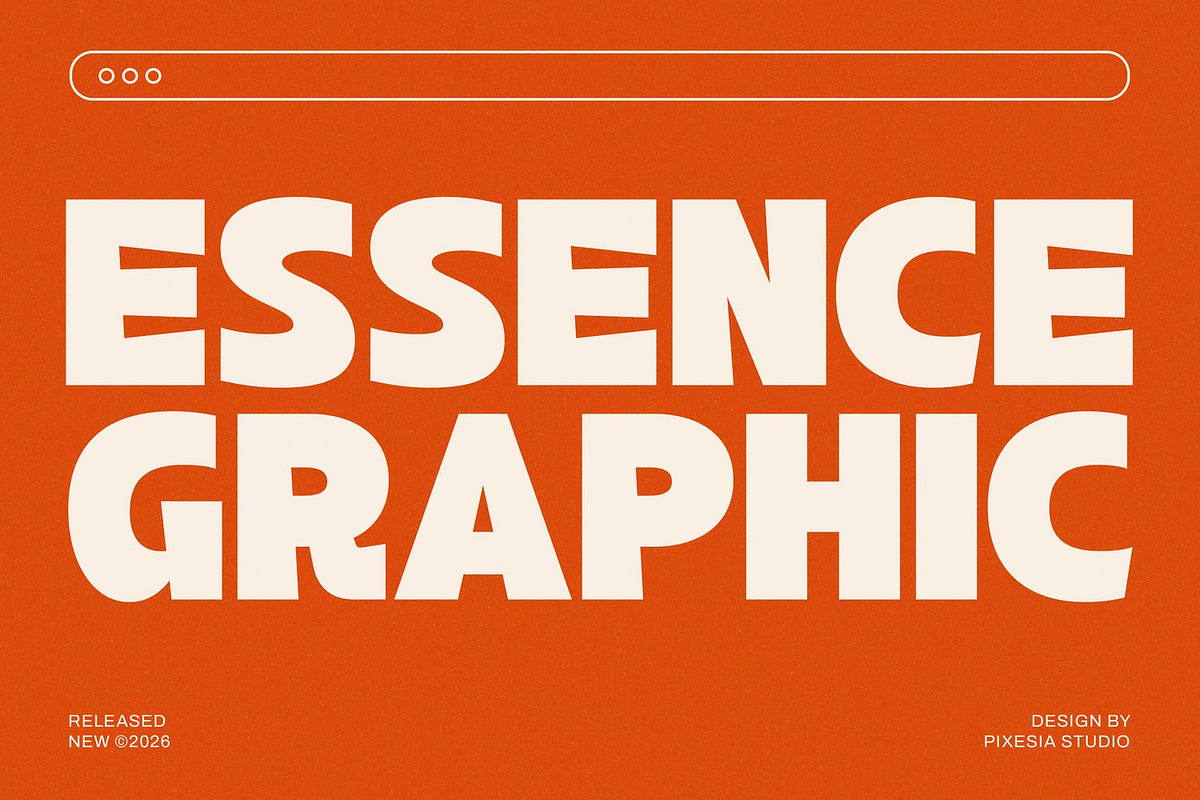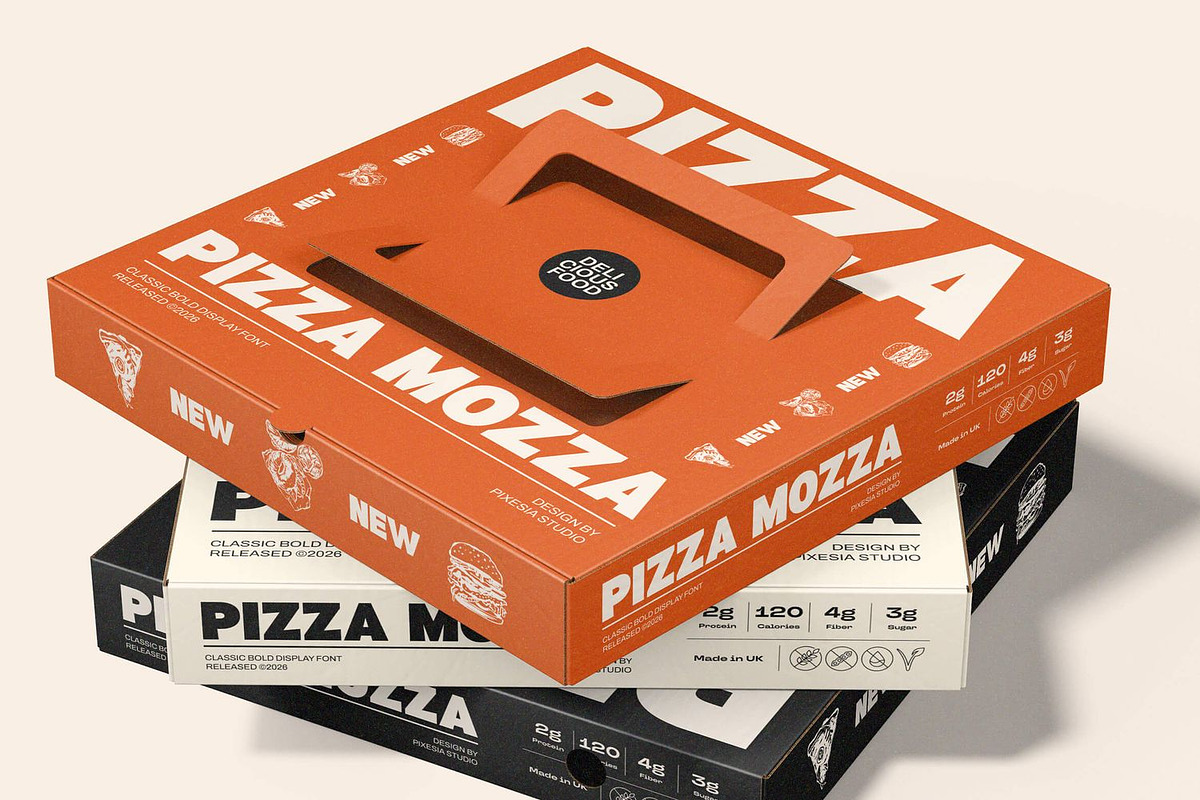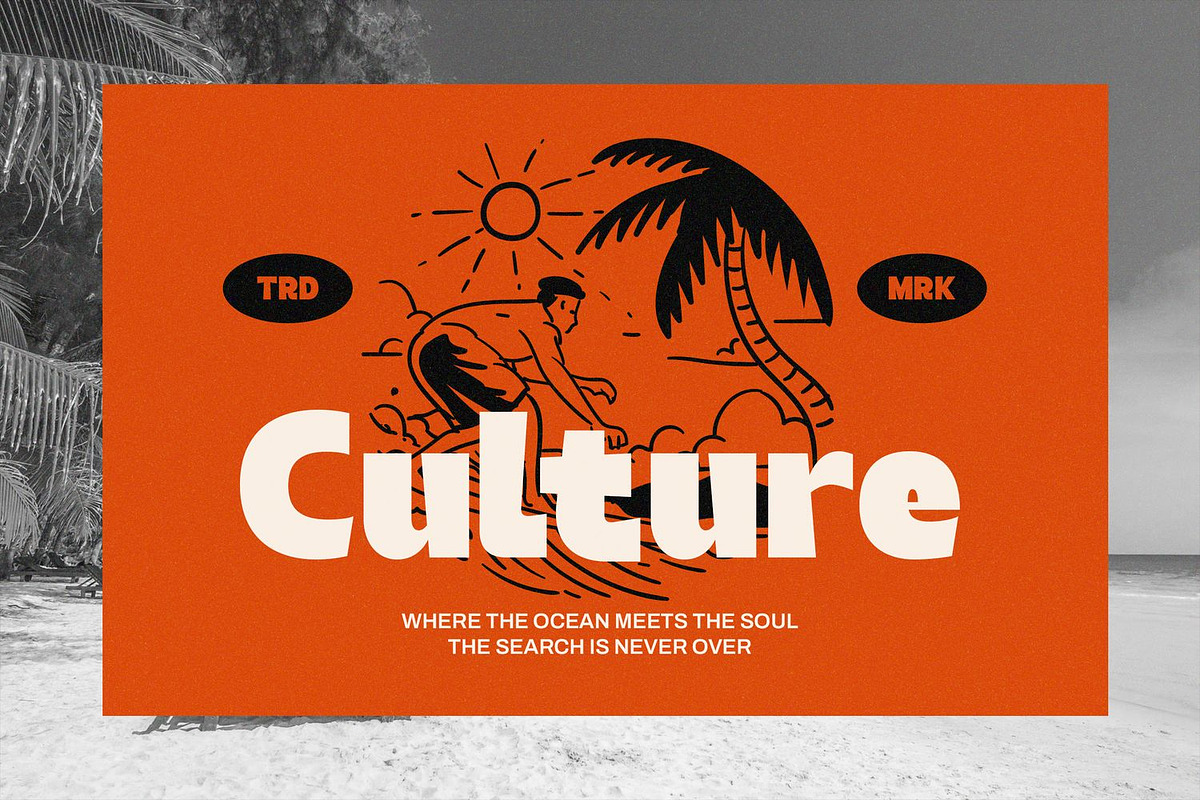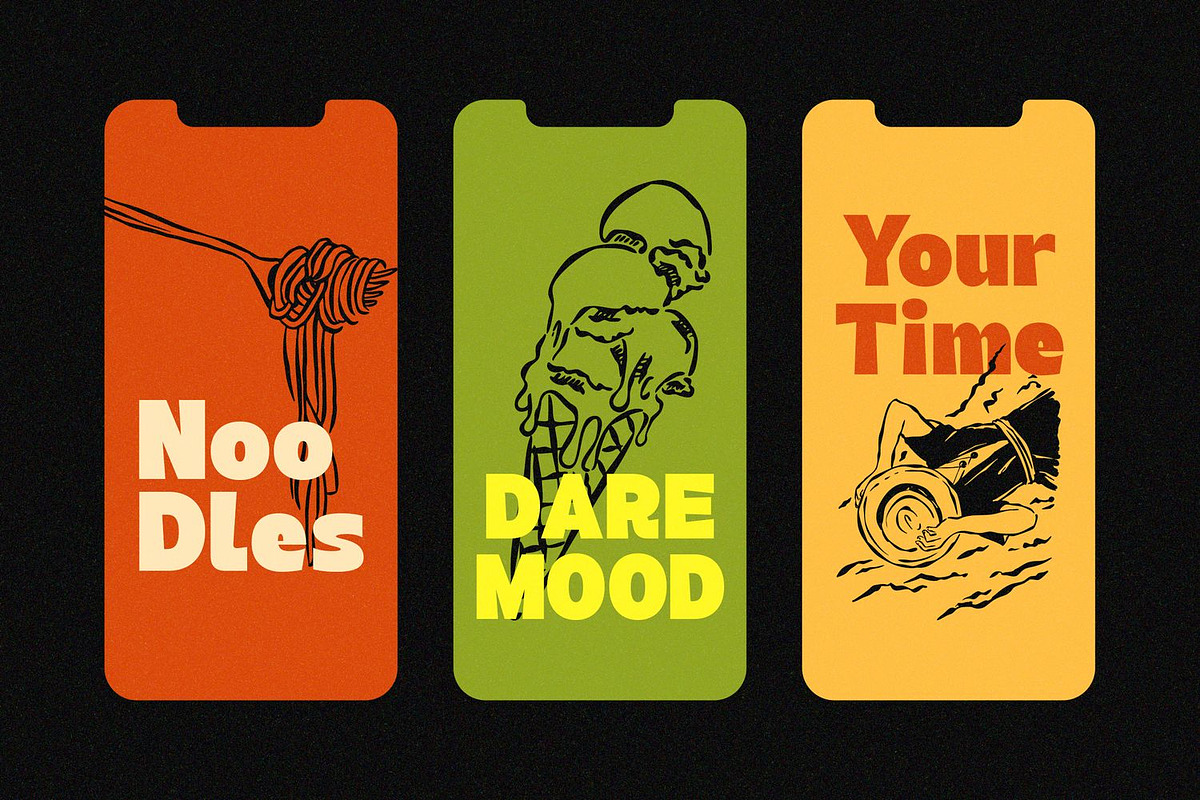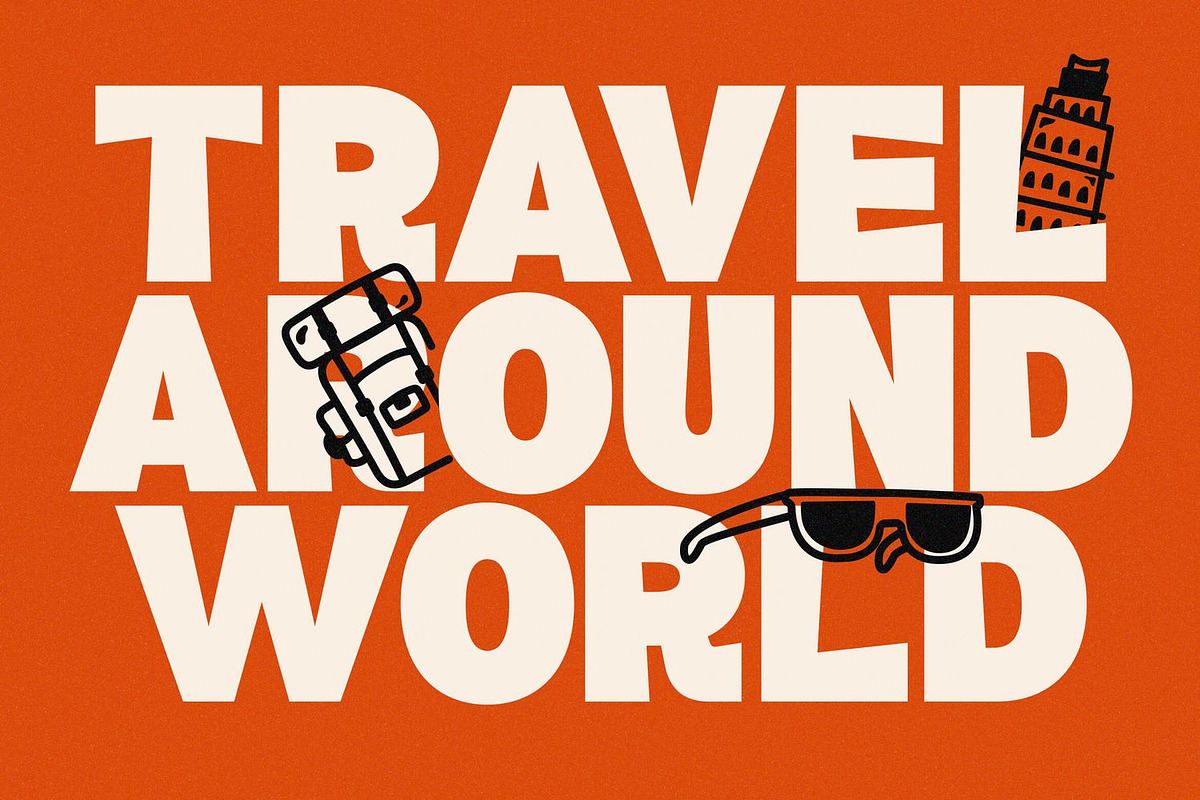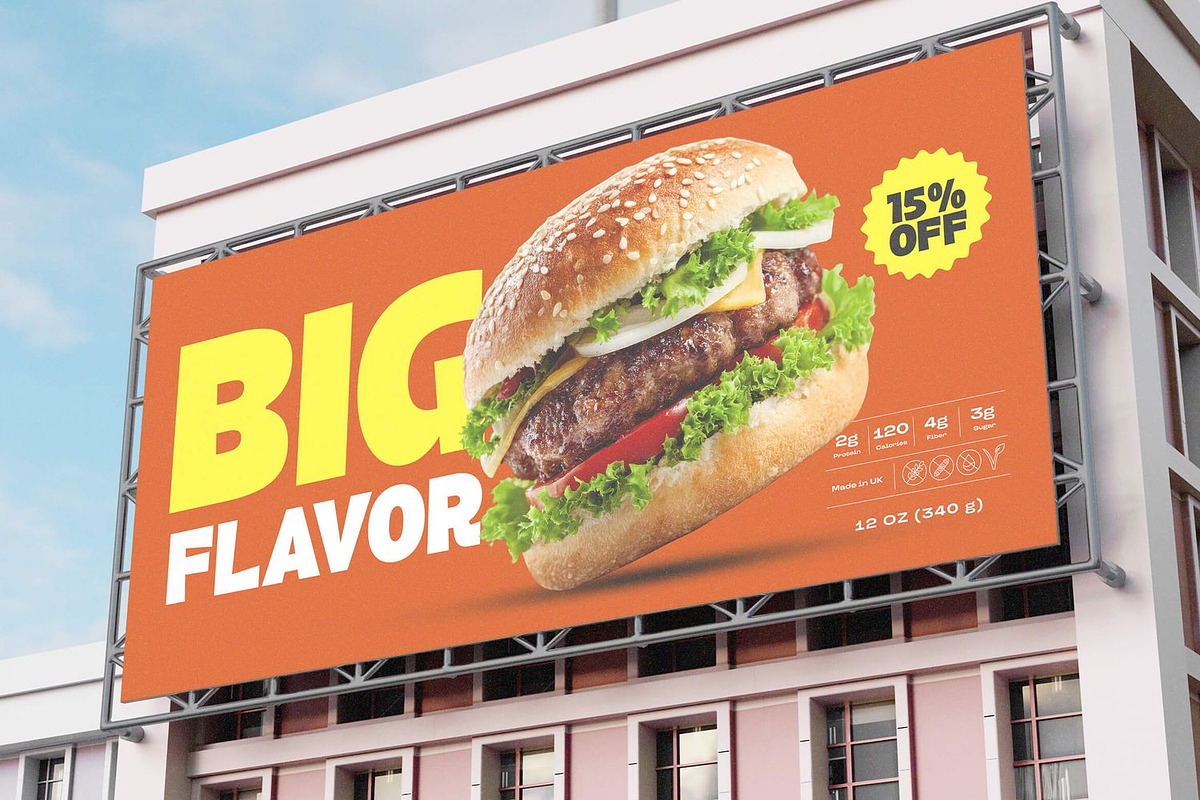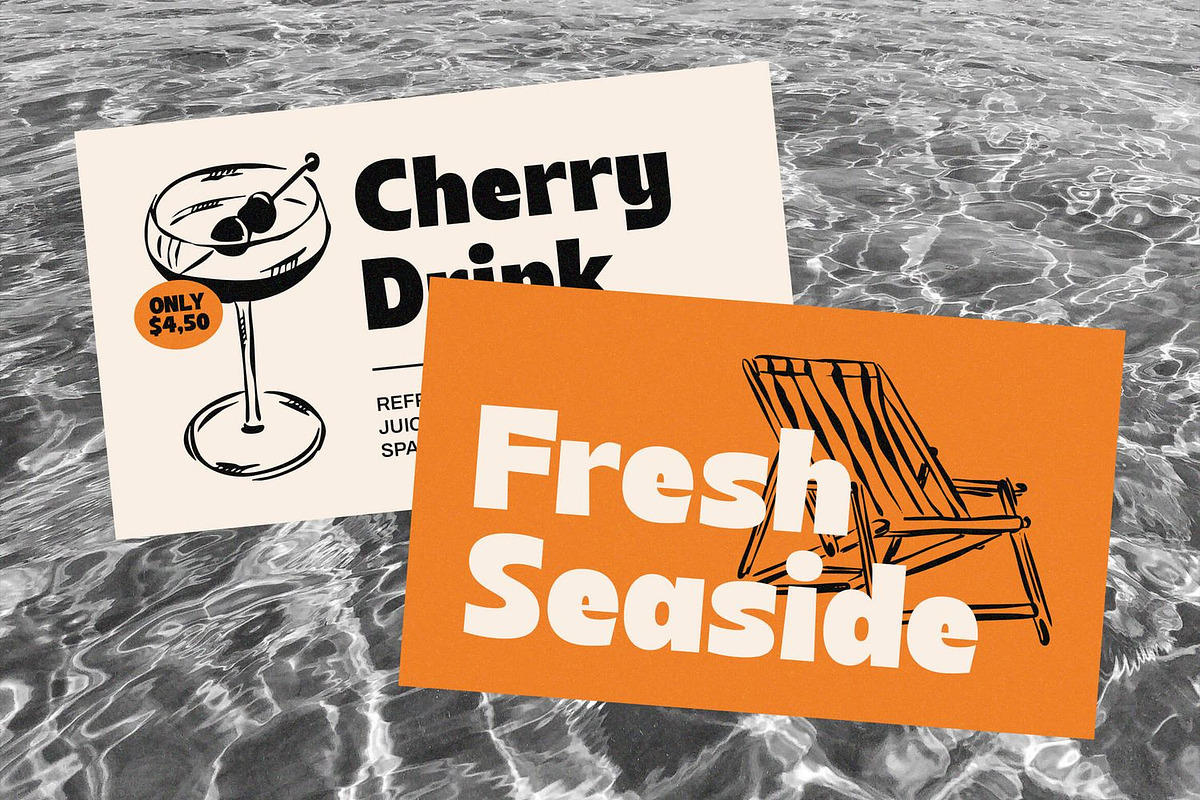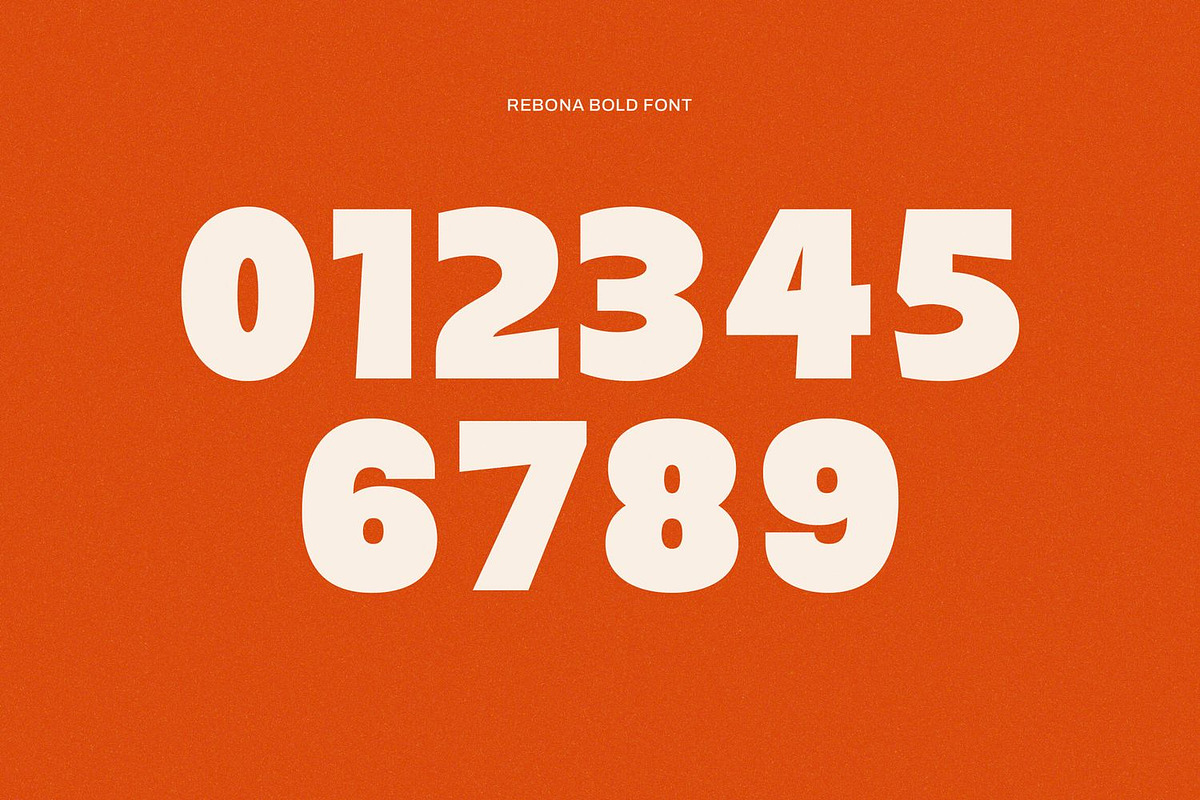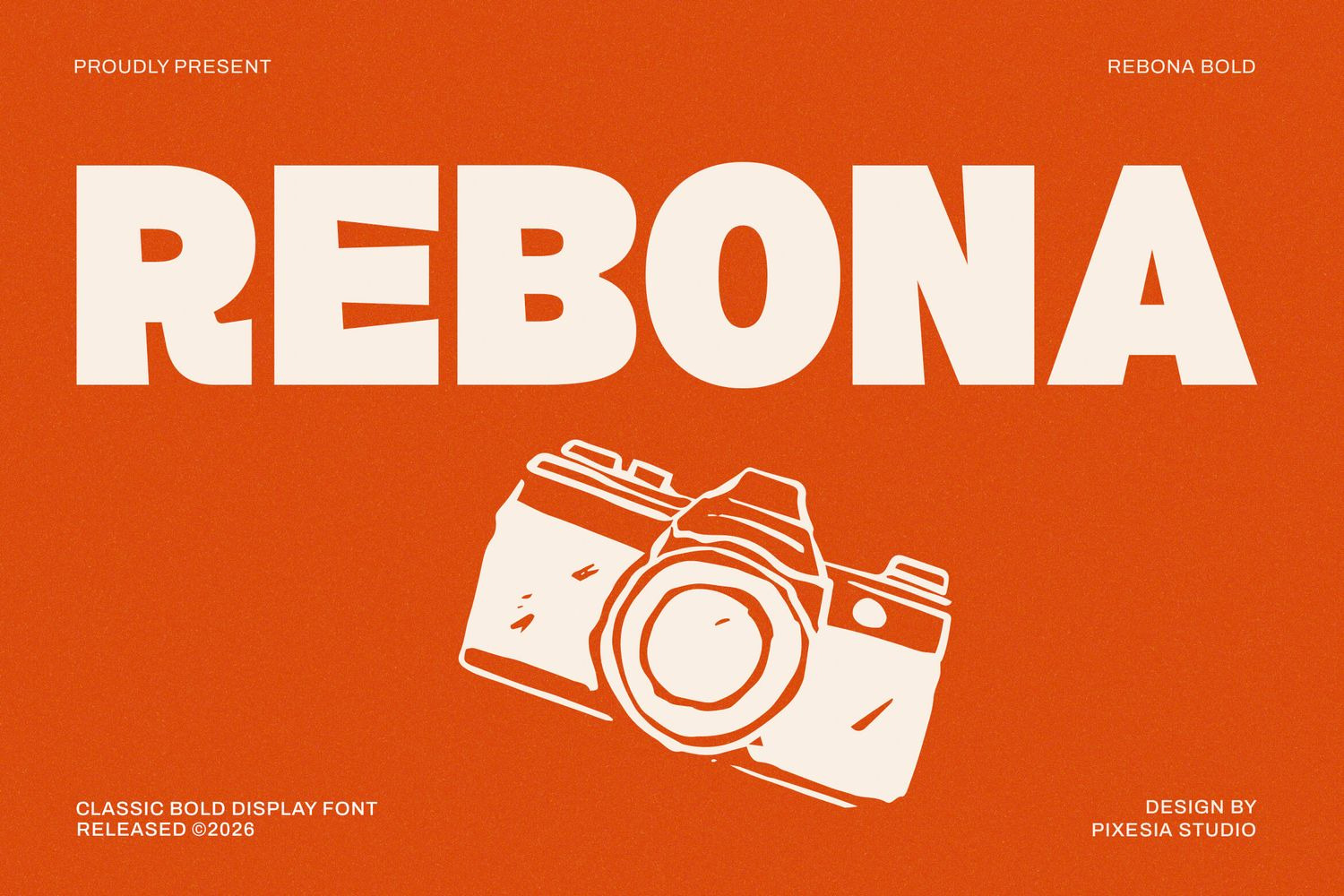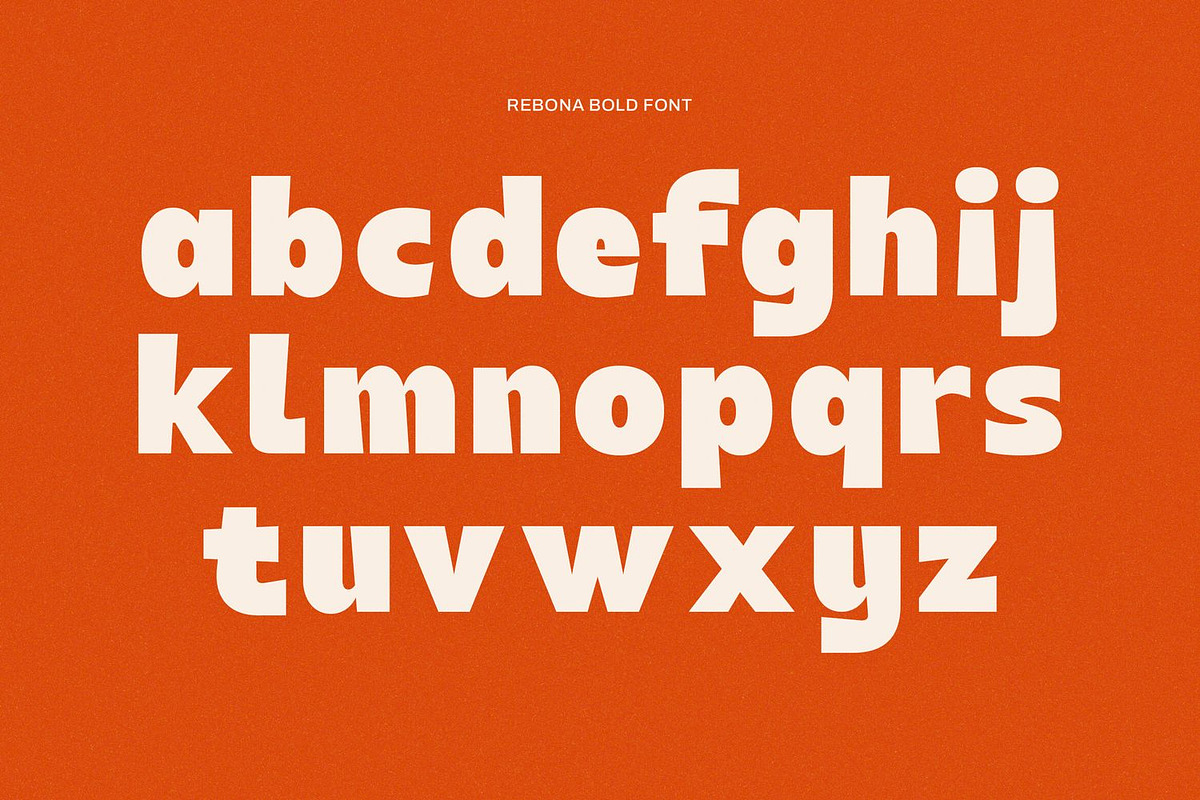
Rebona - Bold Display Font
Introducing Rebona - Bold Display Font
Rebona is a classic bold display font designed to deliver strong visual impact with clean and confident letterforms. Its solid structure and balanced proportions make it highly readable while maintaining a modern retro personality.
Perfect for posters, advertising, branding, logos, packaging, social media, editorial layouts and editorial headlines, Rebona Bold brings a professional and timeless feel to any design project. Whether used for large titles or eye-catching graphics, this font ensures your message stands out with clarity and strength.